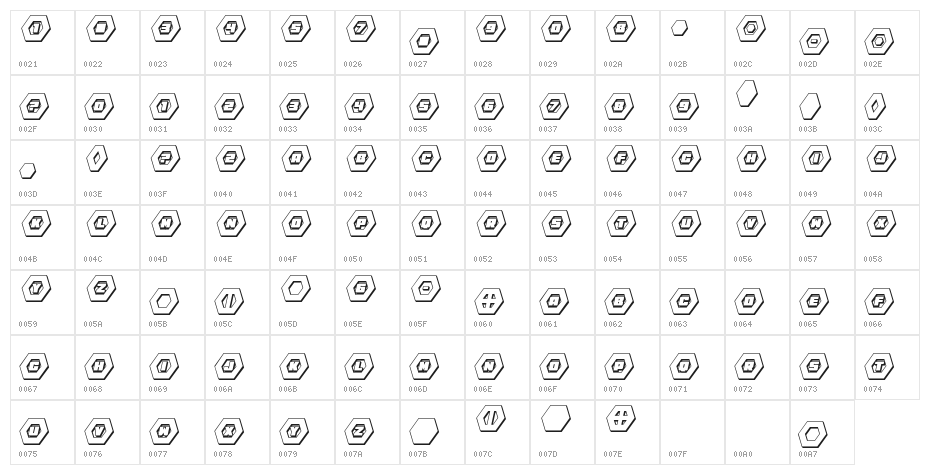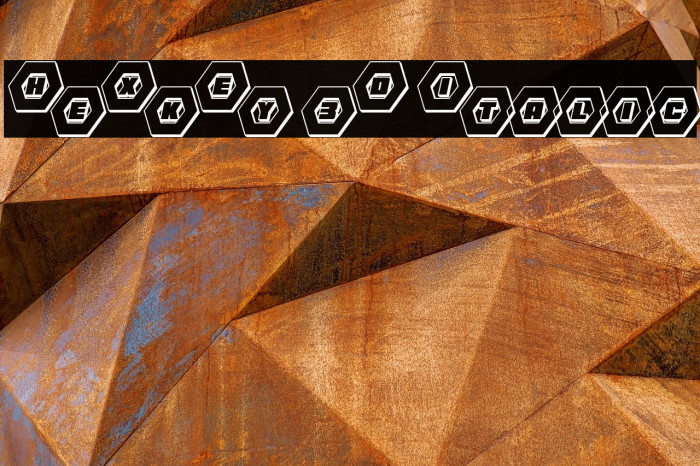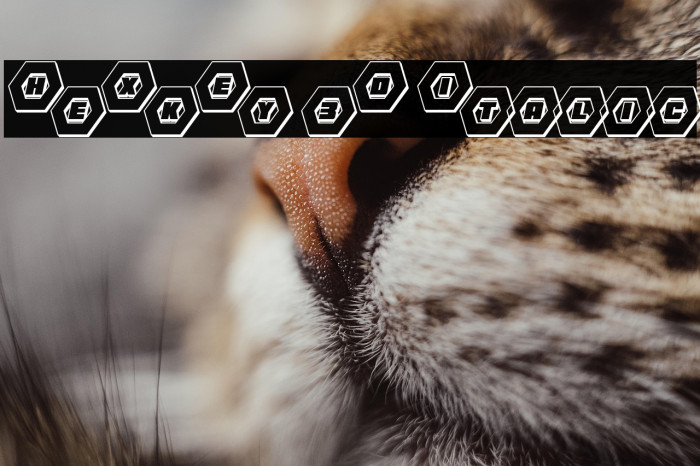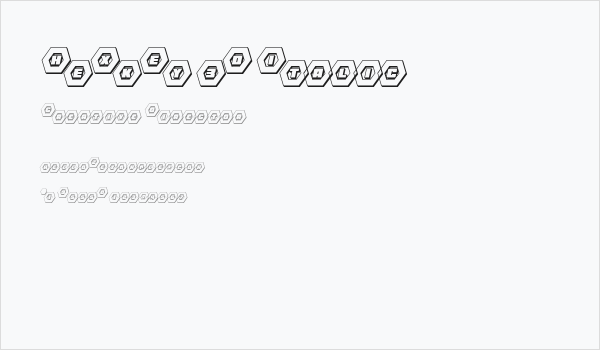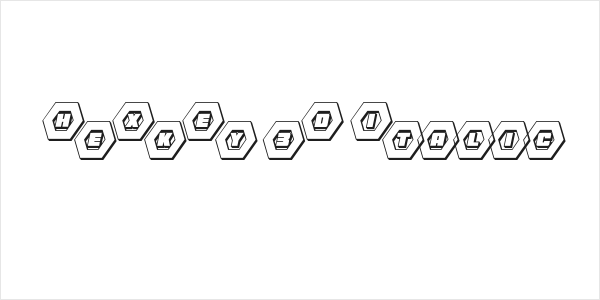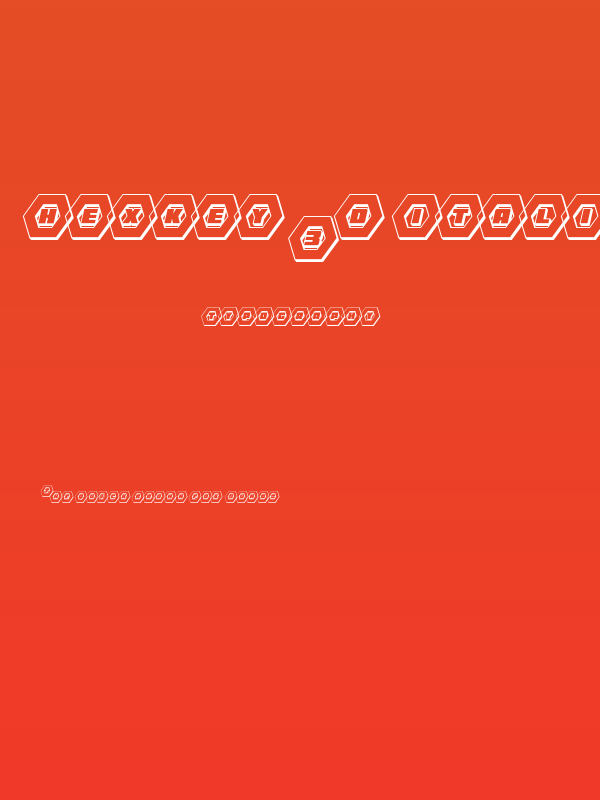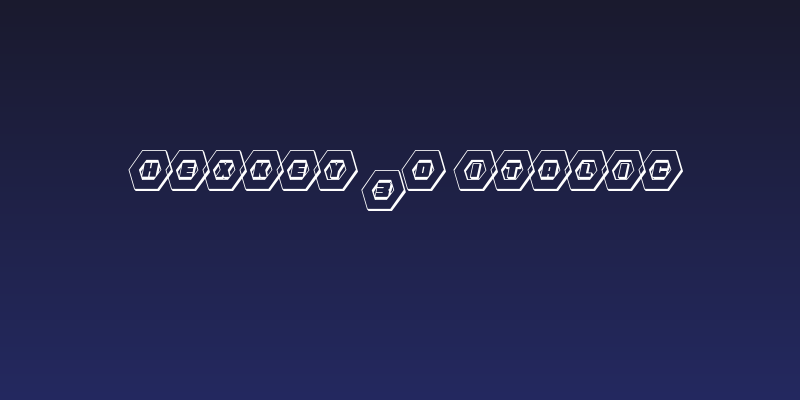
HeXkEy 3D Italic Font
HeXkEy 3D Italic Description
This font features a unique, geometric design with each character enclosed within a hexagonal shape, giving it a three-dimensional appearance. The letters and numbers are bold and italicized, creating a dynamic and futuristic look. The consistent use of hexagons provides a sense of uniformity and structure, while the italic slant adds a touch of movement and modernity. This font is highly stylized, making it ideal for projects that require a strong visual impact. The characters are evenly spaced within their hexagonal frames, ensuring readability despite the complex design.
| Overall Style | Futuristic, Geometric |
| Proposed Projects | Ideal for video game titles, tech-themed posters, futuristic branding, and sci-fi book covers. |